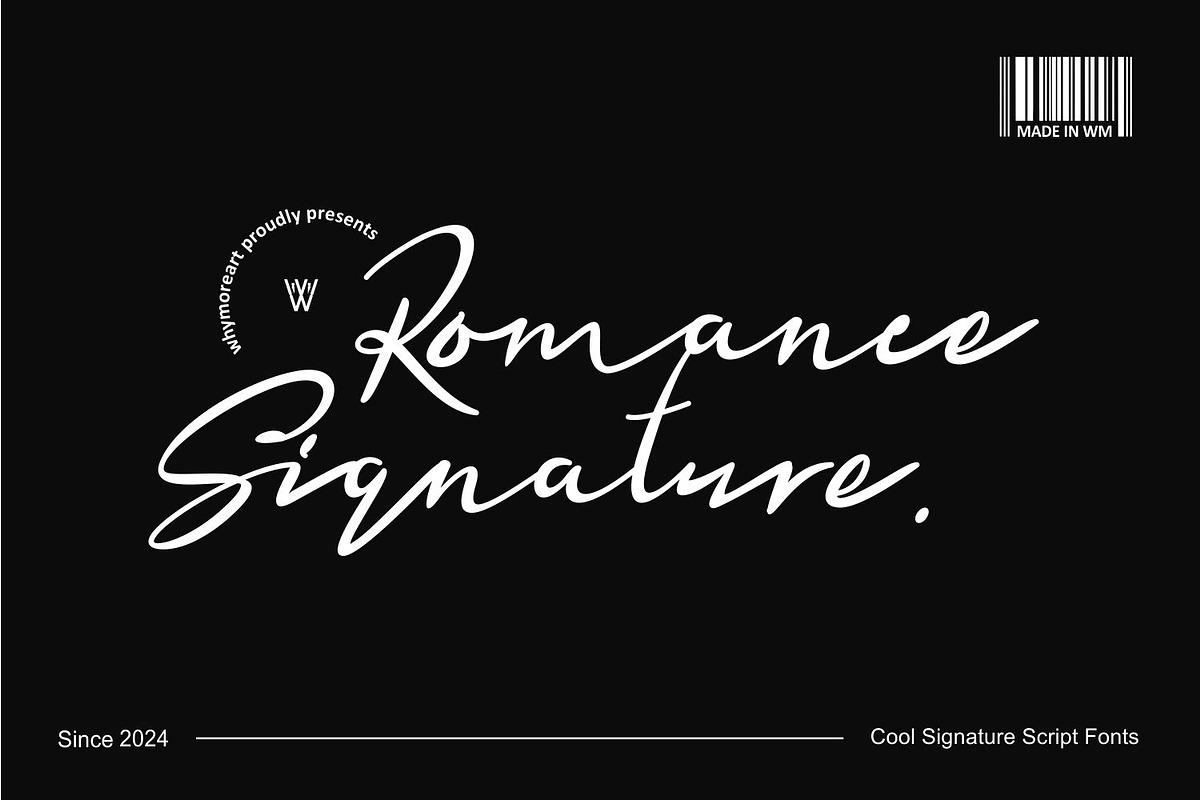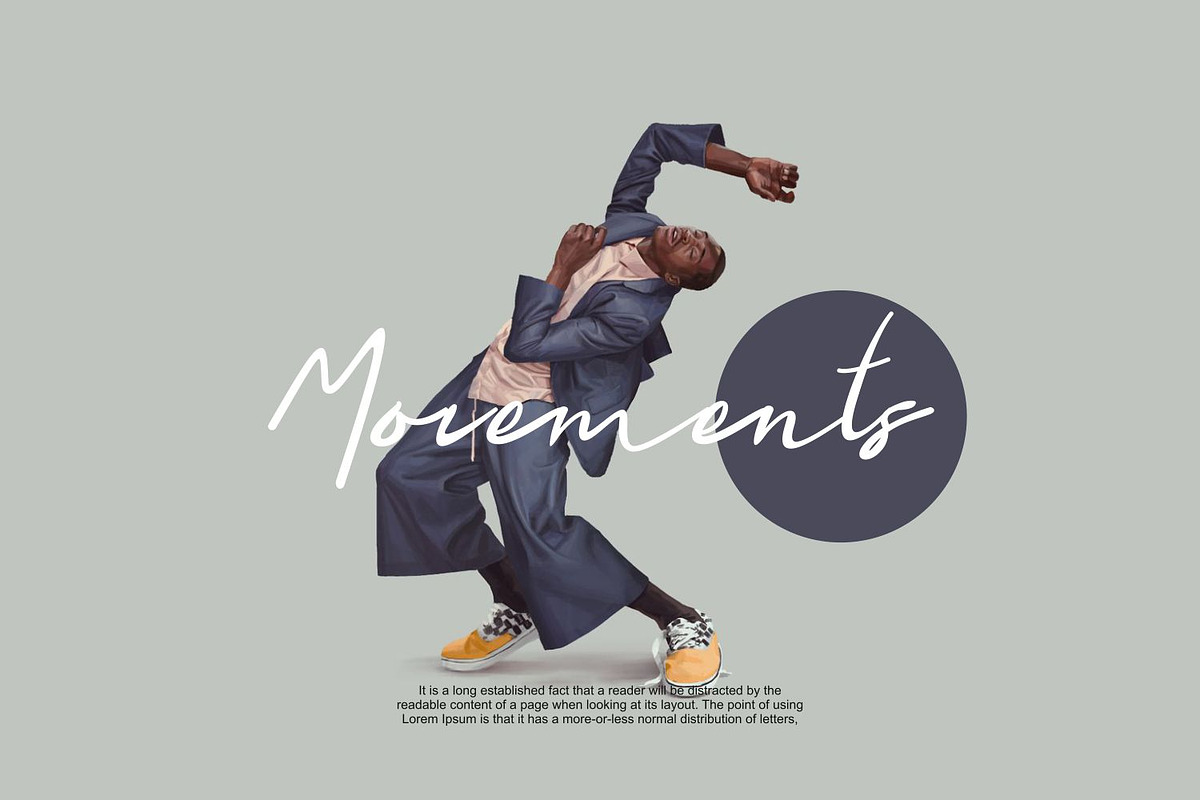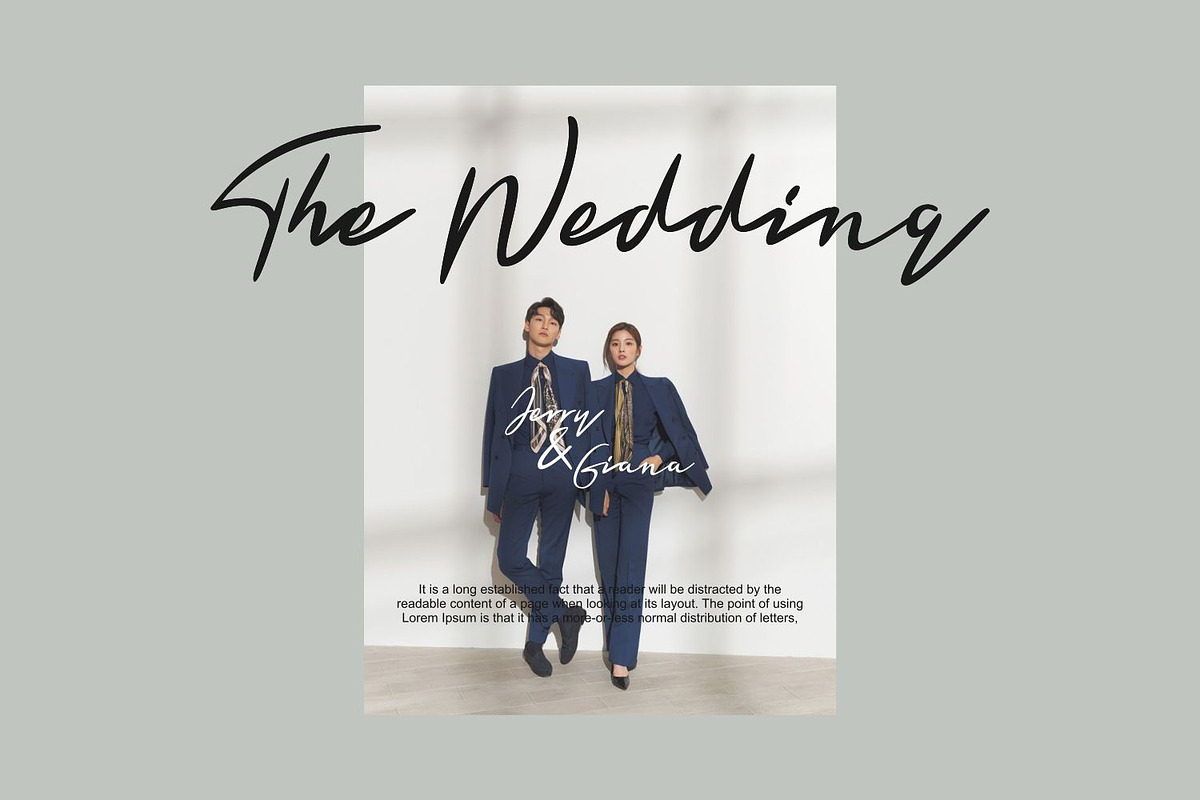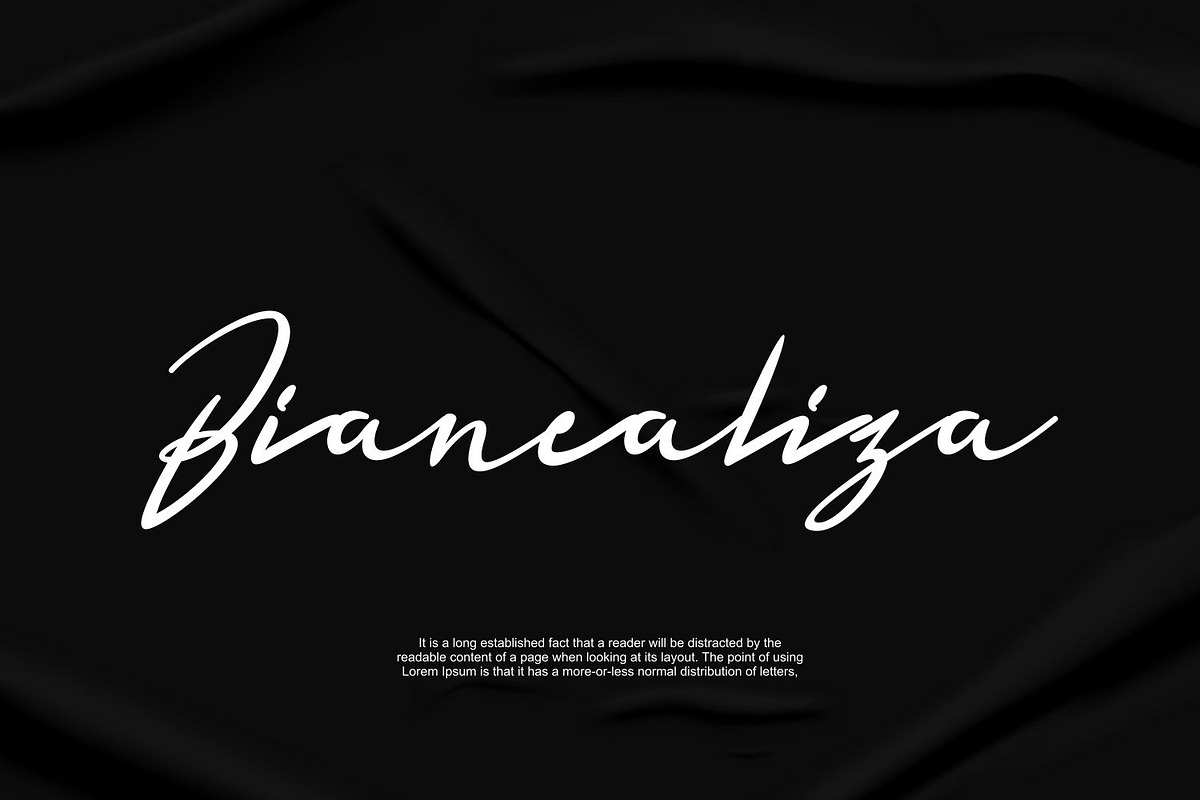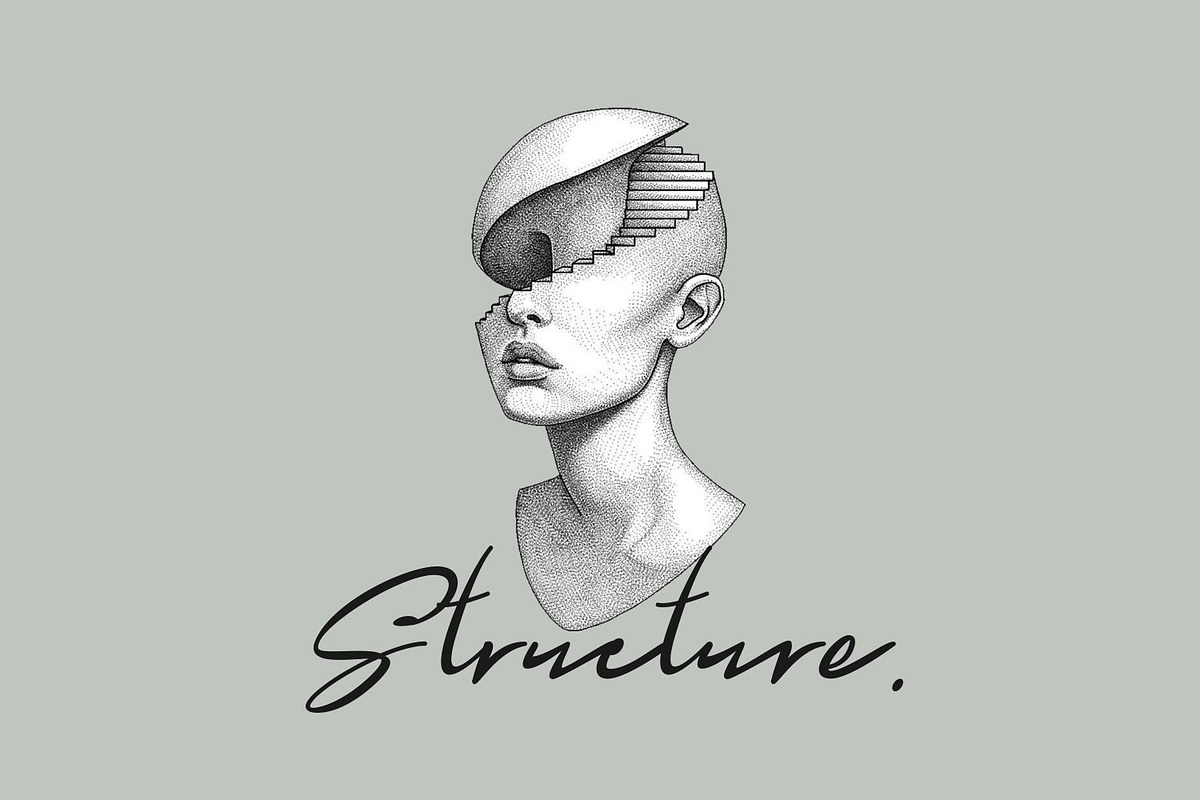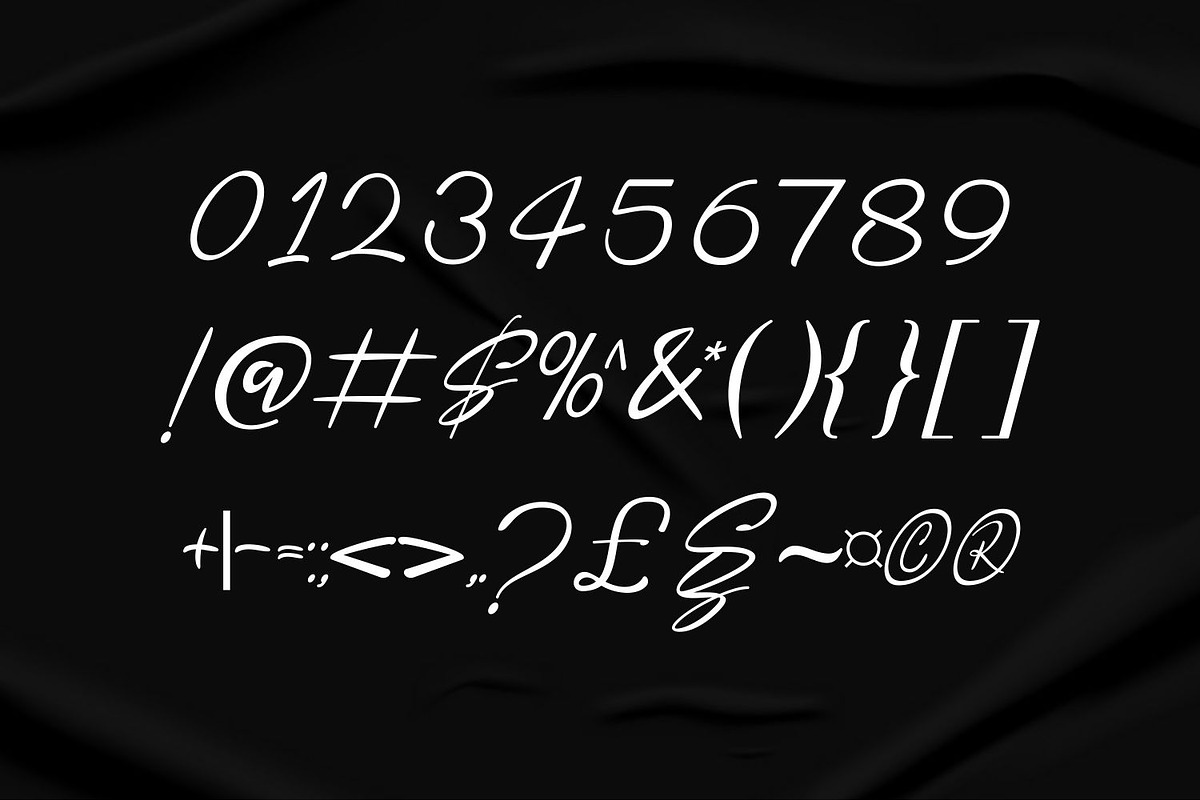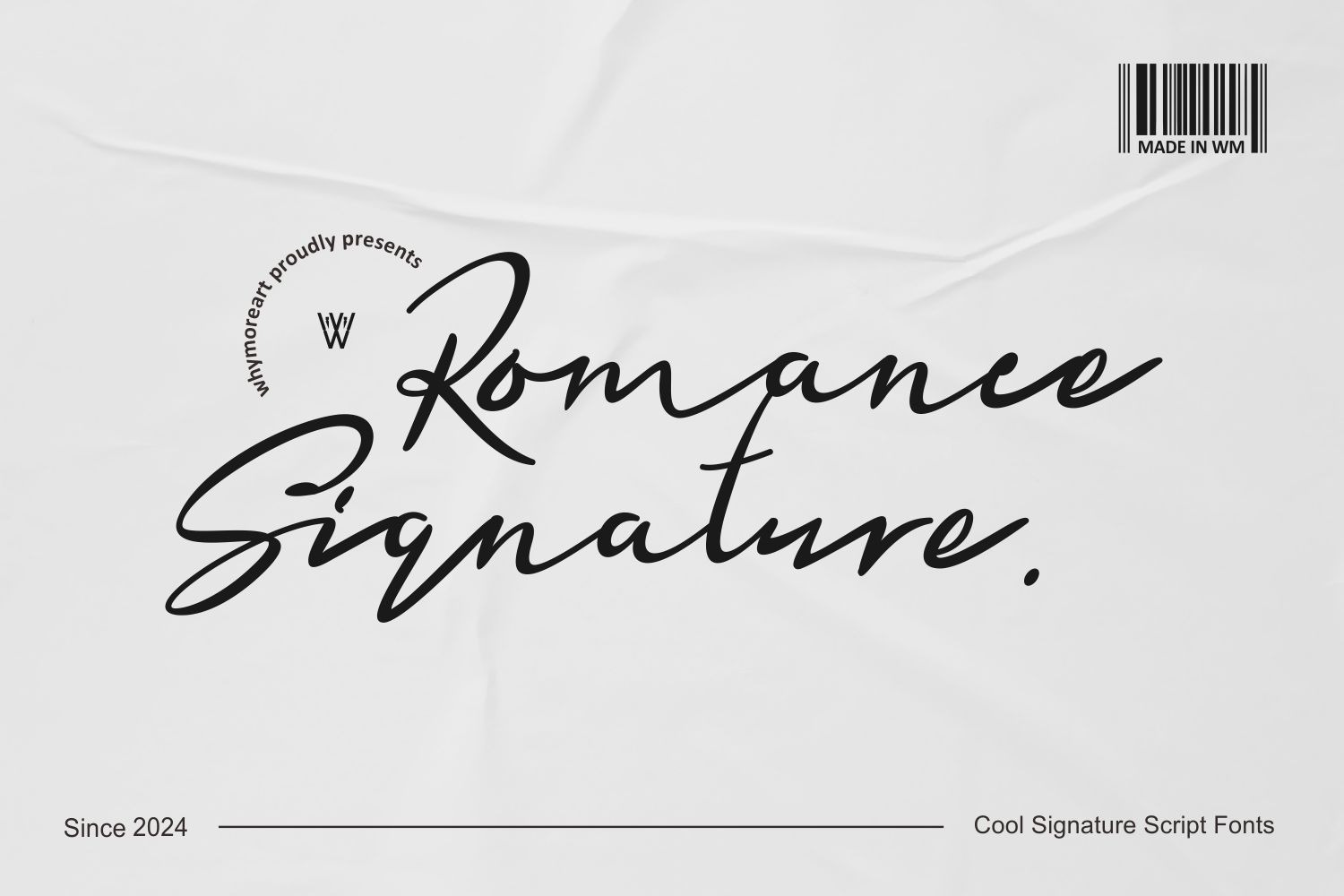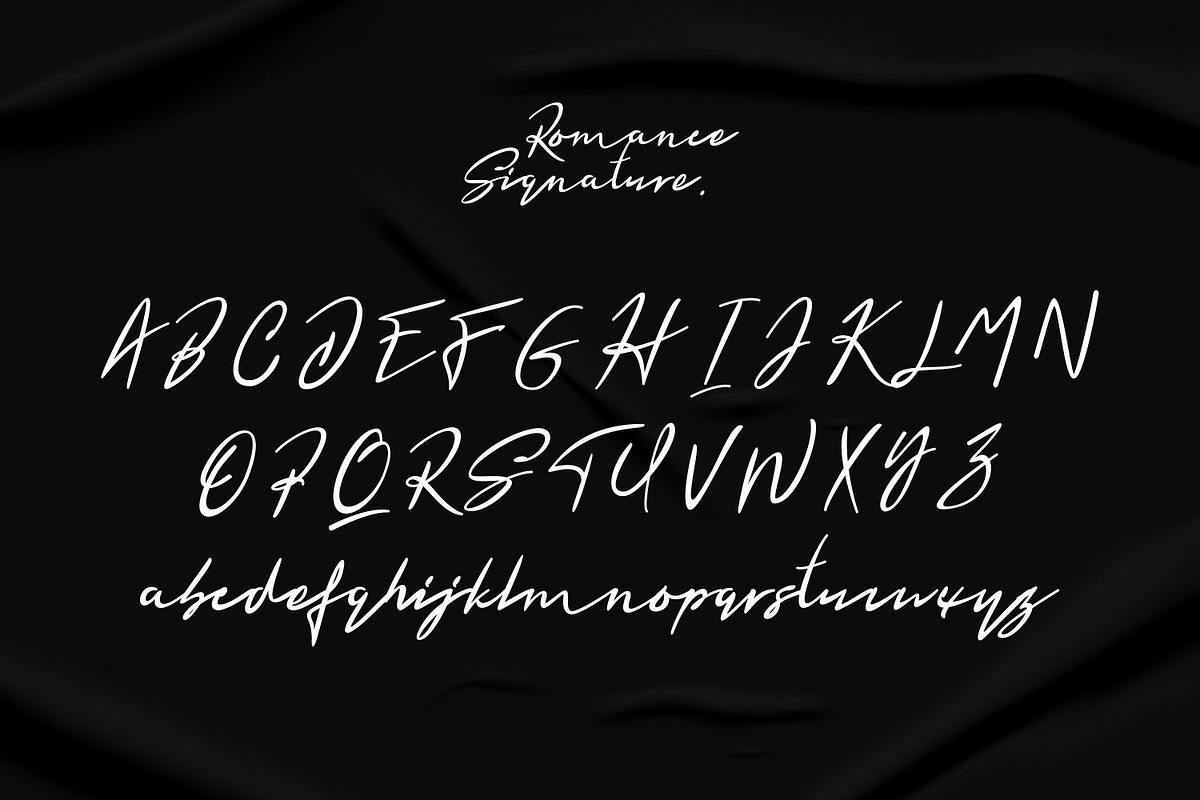
Romance Script Signature Font
Discover the allure of the Romance Signature Script Marker, a quintessential tool radiating elegance and splendor for every romantic correspondence. This exquisitely designed script marker font promises to transform your heartfelt words, adding a hint of vintage glamour and timeless sophistication to each letter. With gentle curves and fluid lines, it emulates the pure essence of romance. From wedding invitations to emotionally stirring projects, the Romance Signature Script Marker endows your creative designs with elegance. Opt for this elegant and amorous font to leave an indelible impression, ensuring your words reverberate with grace, sophistication, and a dash of classic romance.